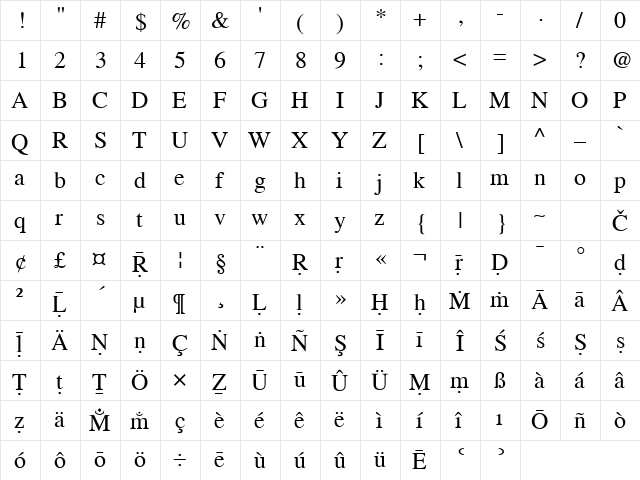
Indo Times Roman
Design Context for Indo Times Typeface
Indo Times is a composed and adaptable typeface that performs quietly and consistently across a wide range of design contexts.